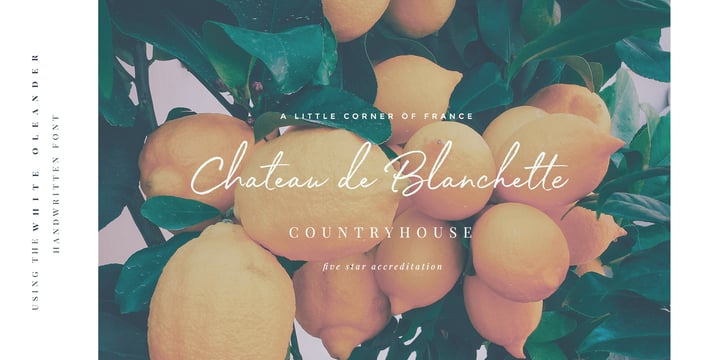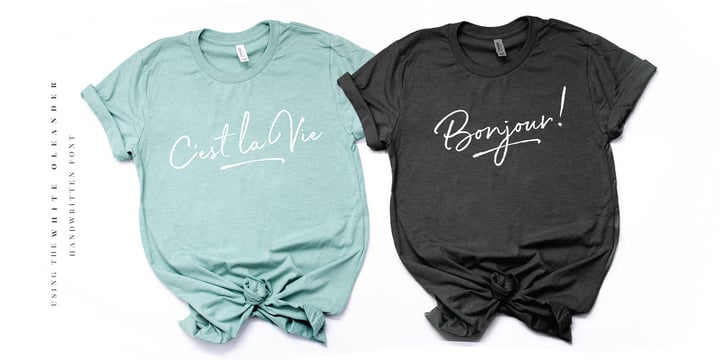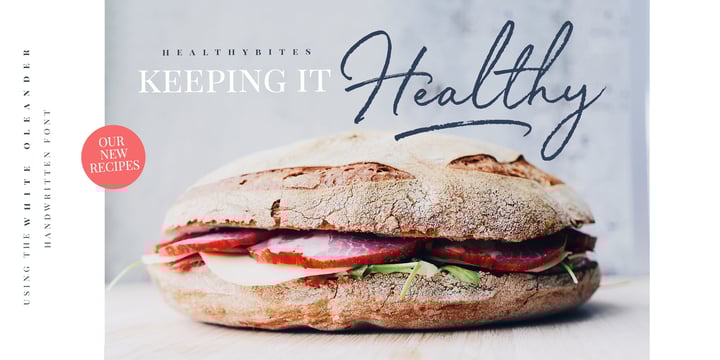
White Oleander
White Oleander by Nicky Laatz
White Oleander Font Family was designed by Nicky Laatz and published by Nicky Laatz. White Oleander contains 4 styles and family package options. More about this family
About White Oleander Font Family
White Oleander is a stylish handwritten font, with subtle texture imperfections, to appear as authentic as possible while remaining clearly legible in your projects. With four versions of the font: Regular, Slanted, Upright, and Compact, each with a slightly different feel, White Oleander is a truly versatile font — displaying a sophisticated, casual, and even playful tone — depending on which style you use. A comprehensive set of upper and lower case letter alternates, as well as a second set of lower case alternates is accessible via its handy Opentype features. White Oleander also features 32 natural-looking ligatures, along with ten swooping swashes, to add authentic variation to your design.
About Nicky Laatz
There is something about letters, of all shapes and forms, that has always gotten my attention, even from a young age. I remember at about 10 years old having a little novelty rubber printing press stamp kit, and an old printing specimen booklet - I was completely fascinated with them and played with them for hours on end. Making typefaces now, I often think back to them and how they might have started something. Other than fonts, I love any form of creativity , and love making beautiful things of any description - but it's creating typefaces that it my firm favourite of them all.